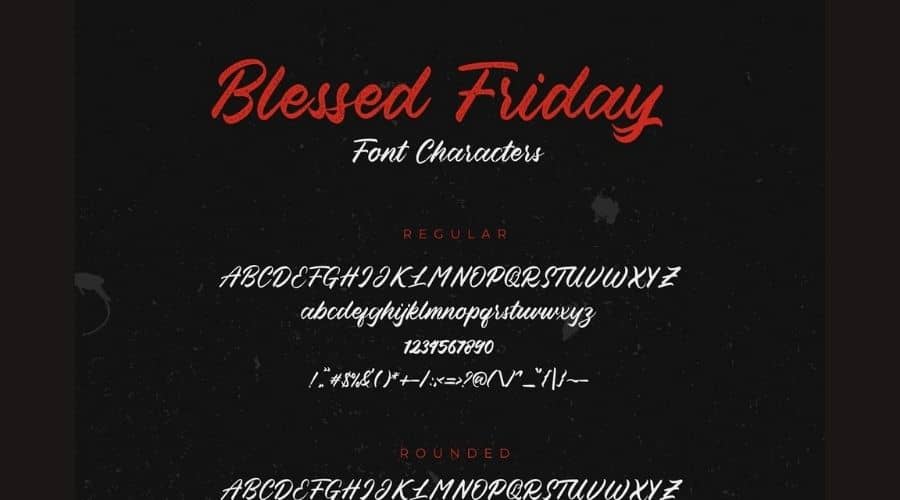
Blessed Friday Script Font
Blessed Friday Font is a script font featuring a variety of styles. Stylistic Alternates, Stylistic Sets, and Ligature are some of the Open Type elements that were used to split the alternate characters in this typeface. You may access the Open Type features using Open Type programs like Adobe Illustrator, Adobe Photoshop, and Adobe InDesign. The following files were included in the package: Blessed Friday (OTF, TTF, and WOFF), Blessed Friday Rounded (OTF, TTF, and WOFF), and Blessed Friday Textured (OTF, TTF, and WOFF). Because this Font is PUA encoded, you can easily access all of the glyphs and swashes! The typeface is compatible with Windows, Apple/Mac, Linux, and other operating systems. Convert to Webfont, Cricut, Silhouette, and other cutting machines with ease. The Font is designed and published by sancreastd.
Blessed Friday is a stunning handwritten typeface with a distinctive style. Make the most of it by incorporating it into your design concepts! It can be used as a logo, emblem, symbol, packaging, headline, or poster, among other things. Blessed Friday is also excellent for logos, branding, invitations, stationery, wedding designs, logos, business cards, covers, t-shirts, social media posts, and more. It will also be utilized to generate stunning images and text in a variety of colors and styles.
StyleScript